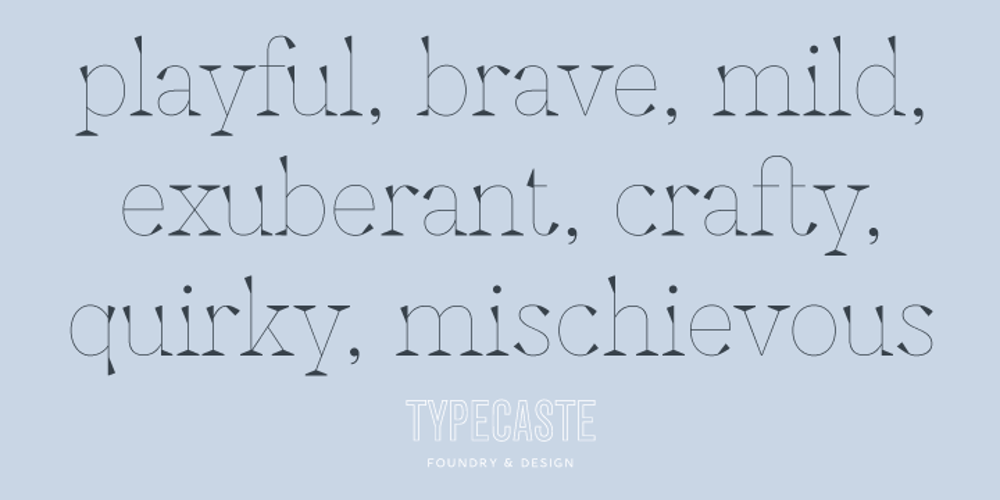
Nika Font Family was designed by published by Typecaste. Nika contains 1 styles and family package options. Nika is a display face with a quirky personality. Born as part of an experiment in contrast within typeface development, Nika has a thin body with chunky serifs. She is simultaneously sleek and playful, legible and distinct. As part of a magazine repertoire, on neighborhood flyers, or a blog, Nika feels at home in various applications.